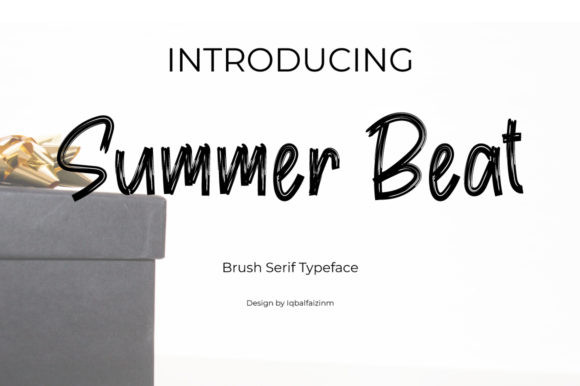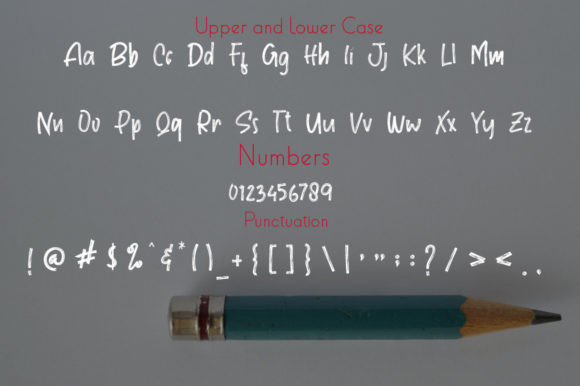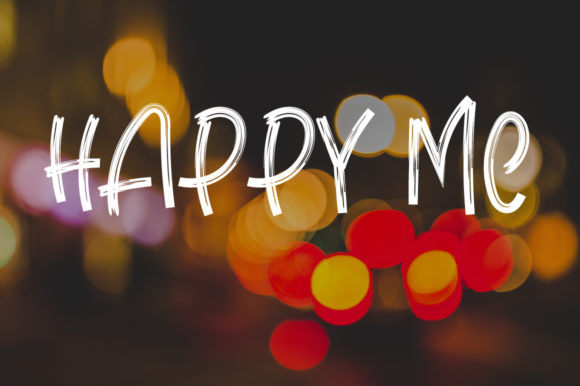
Summer Beat Font
Summer Beat is a sweet and simple handwritten font. Its natural and unique style makes it incredibly fitting to a large pool of designs. The only limit is your imagination!